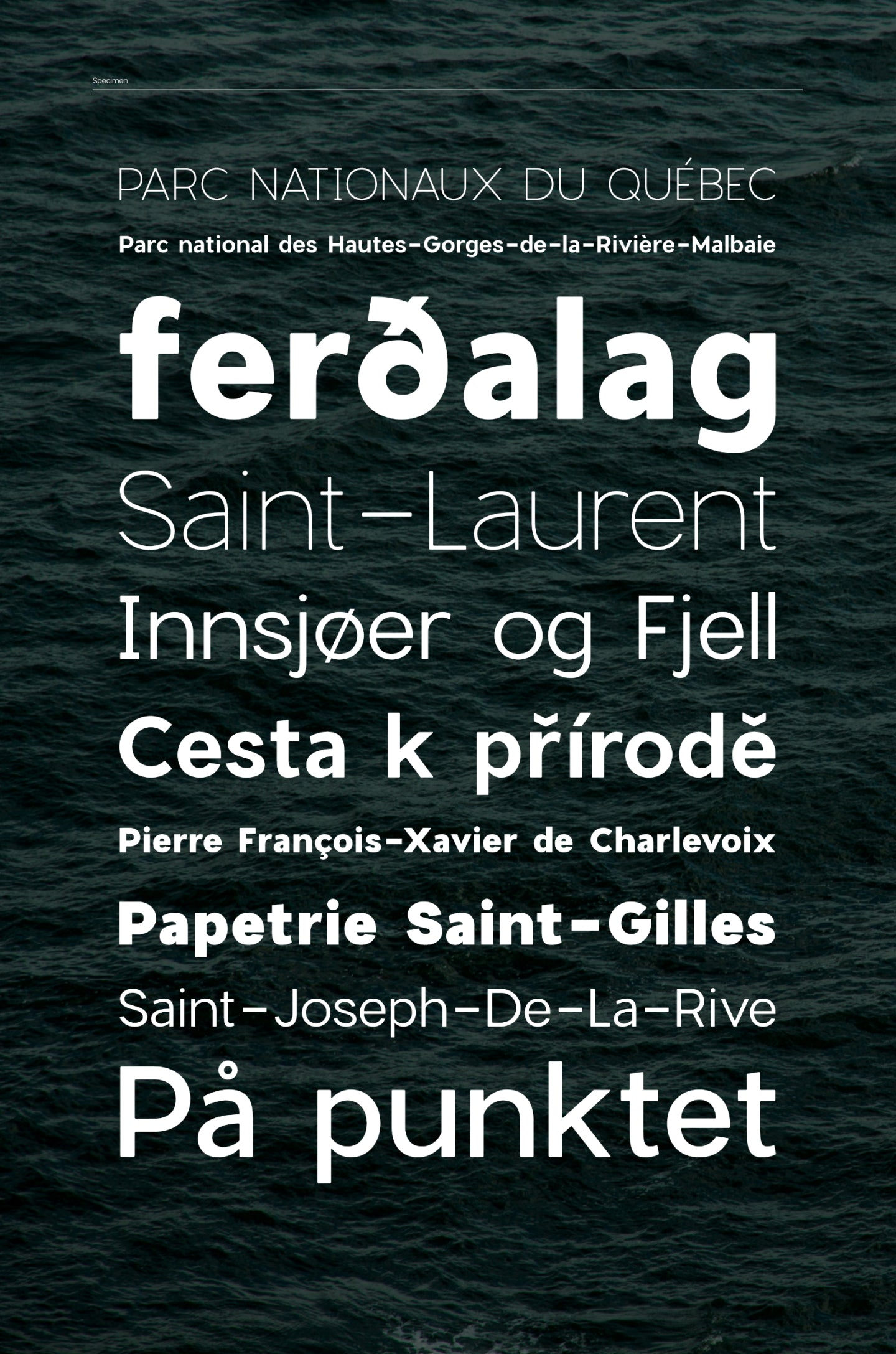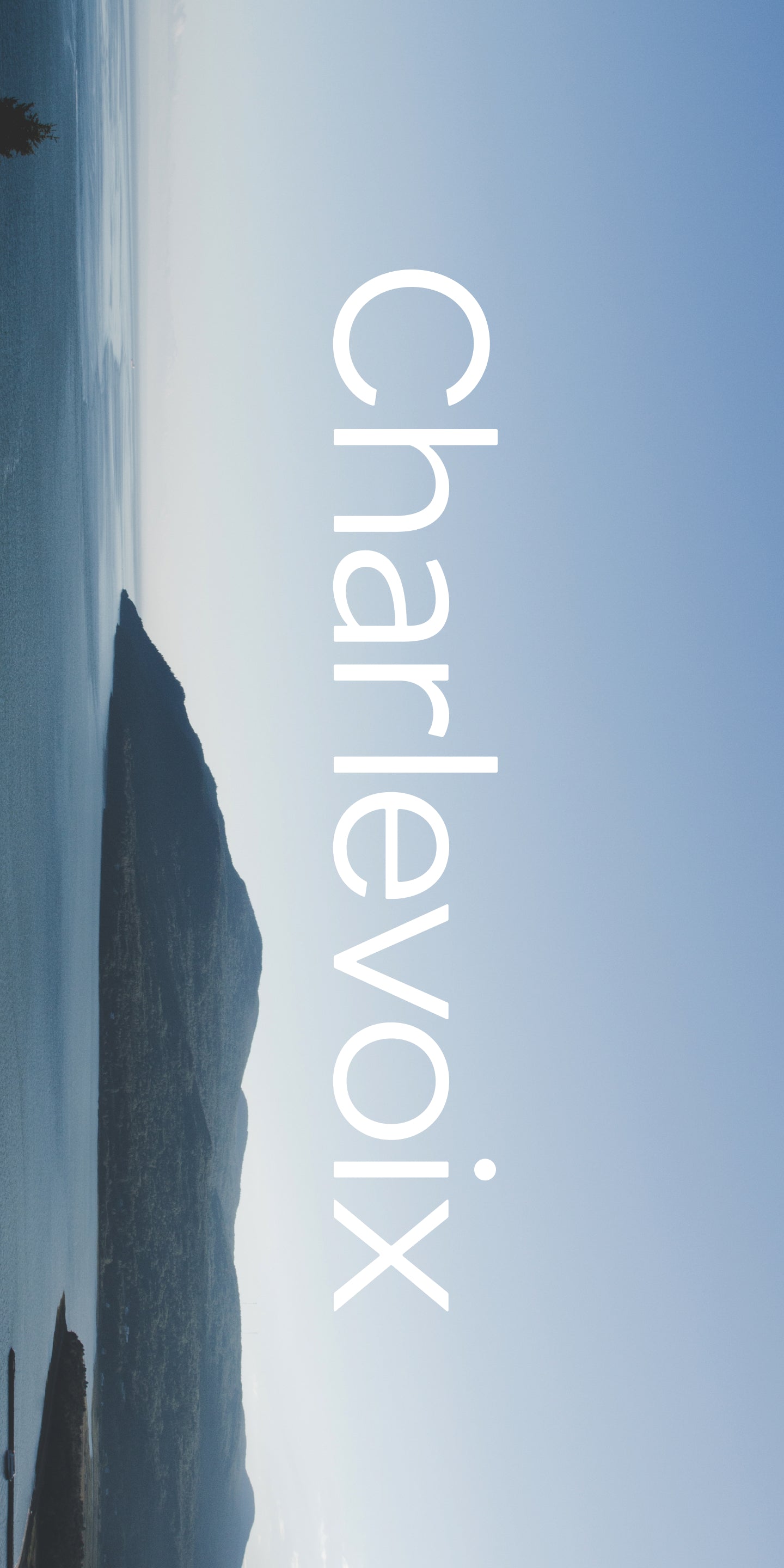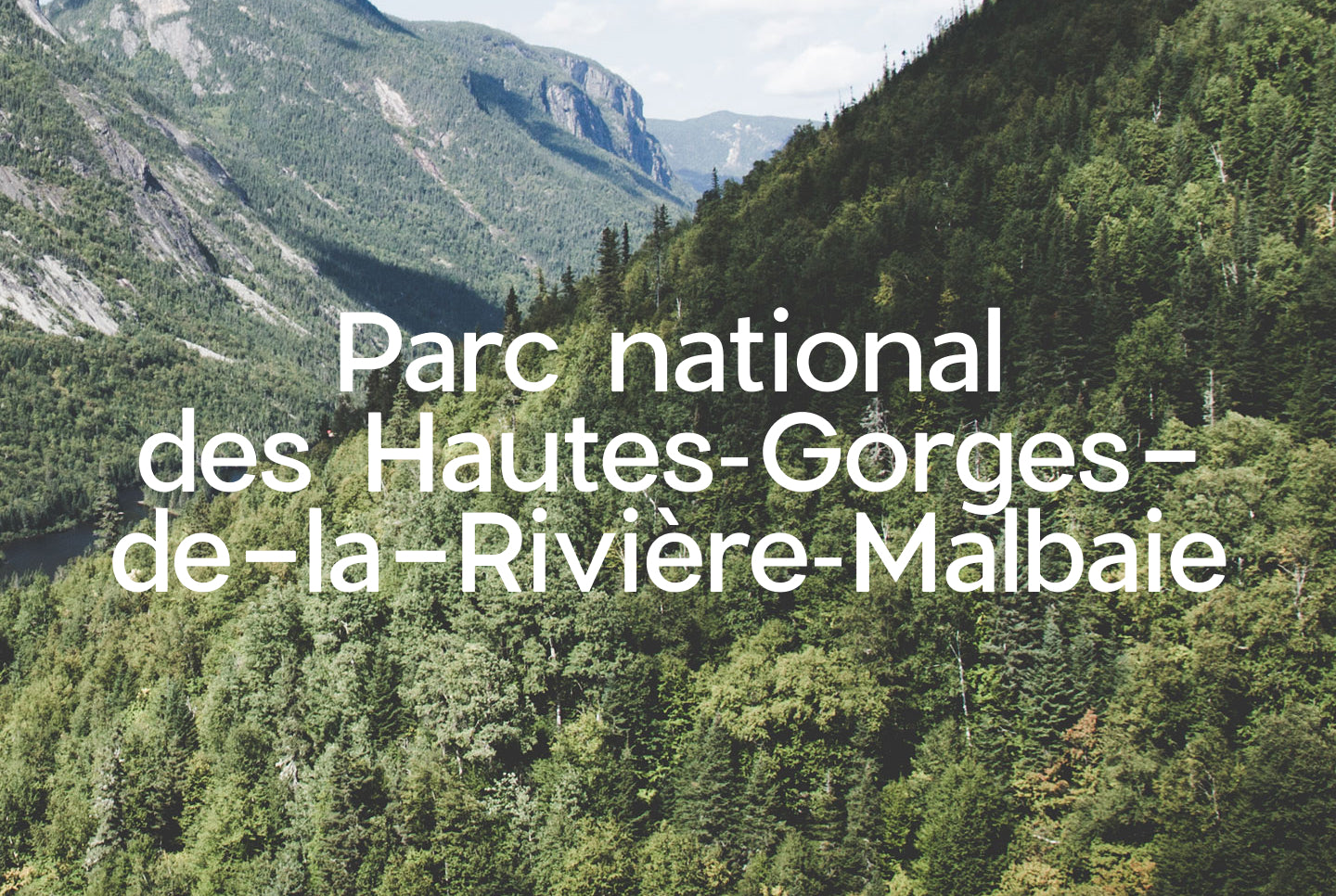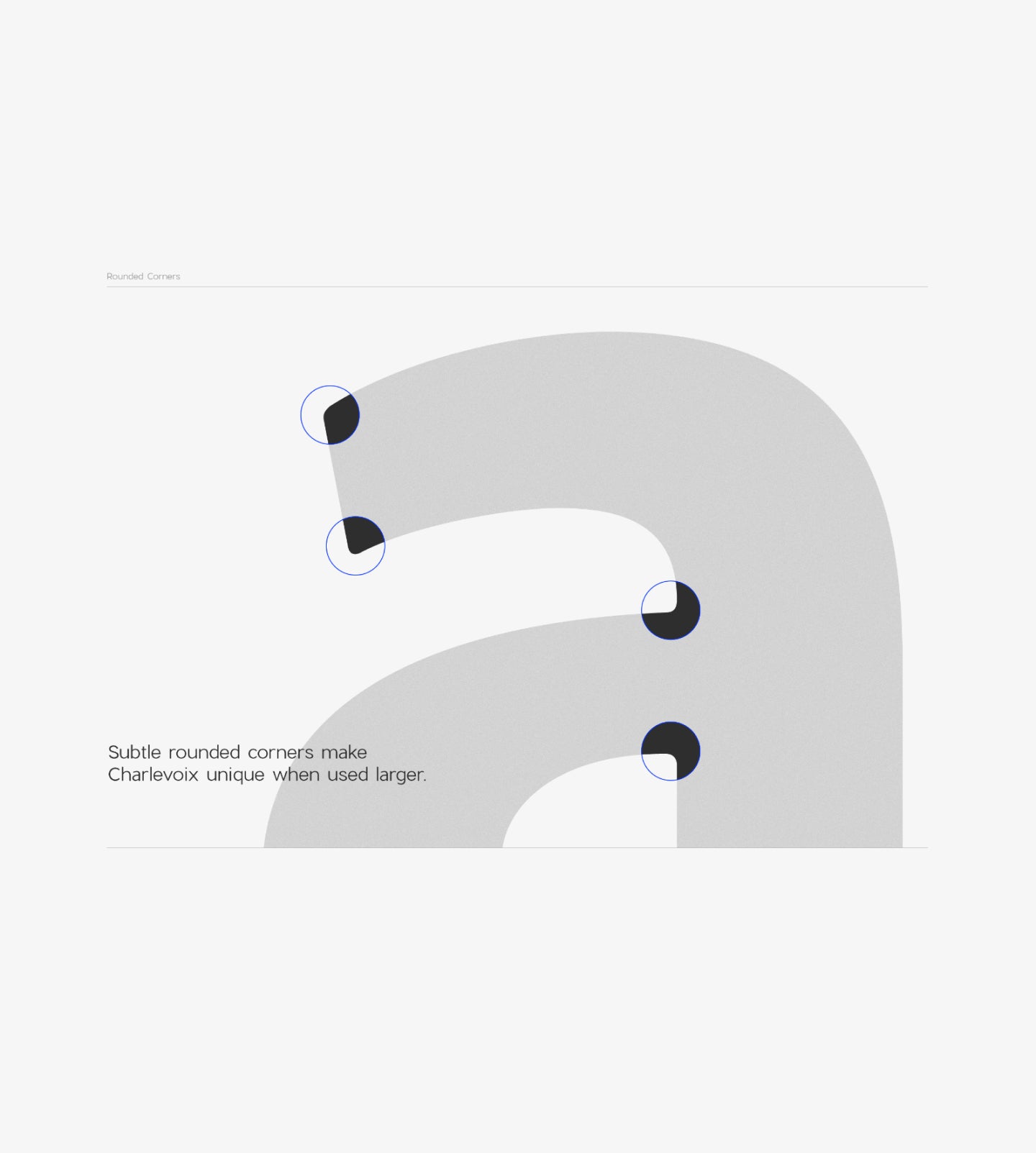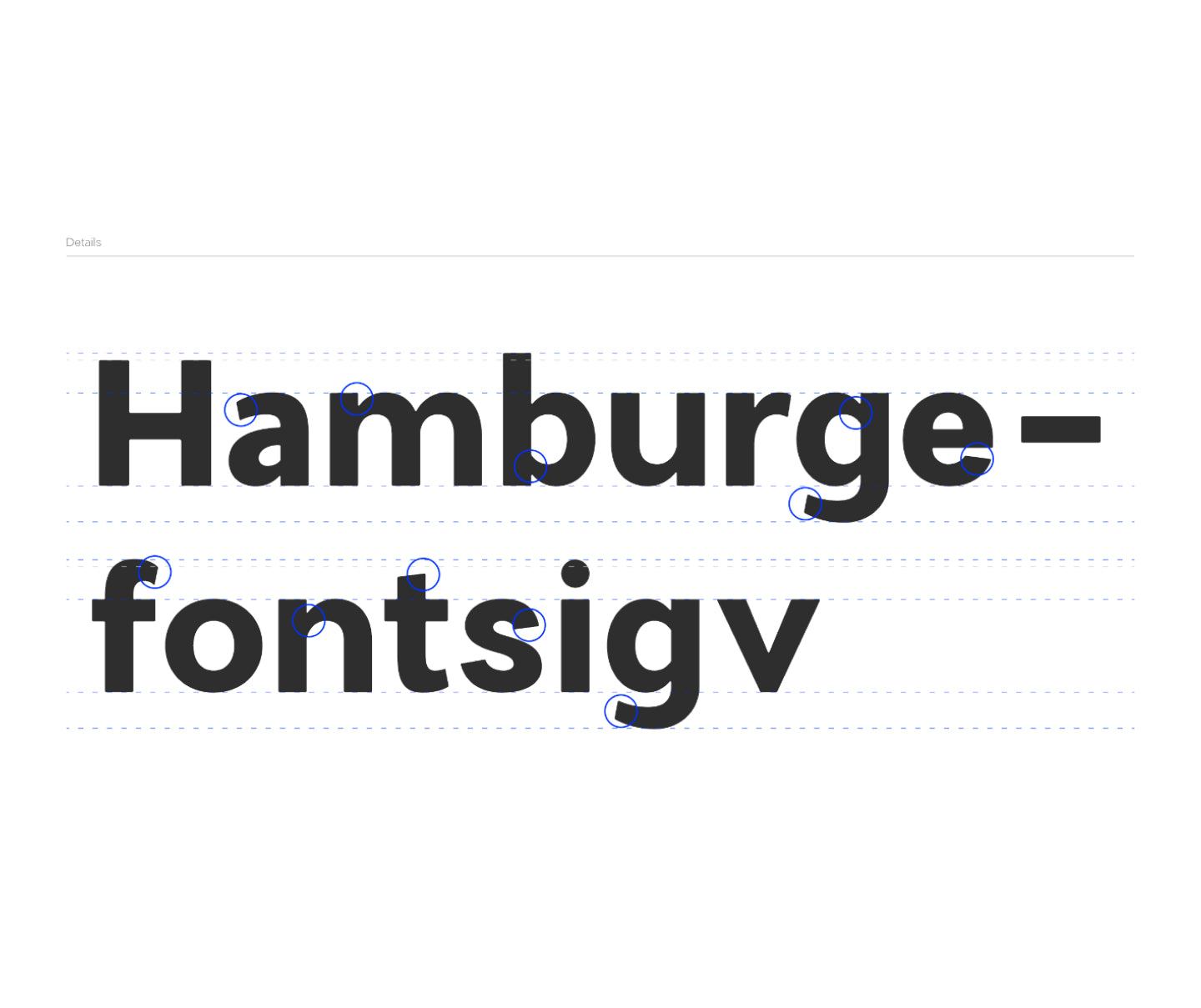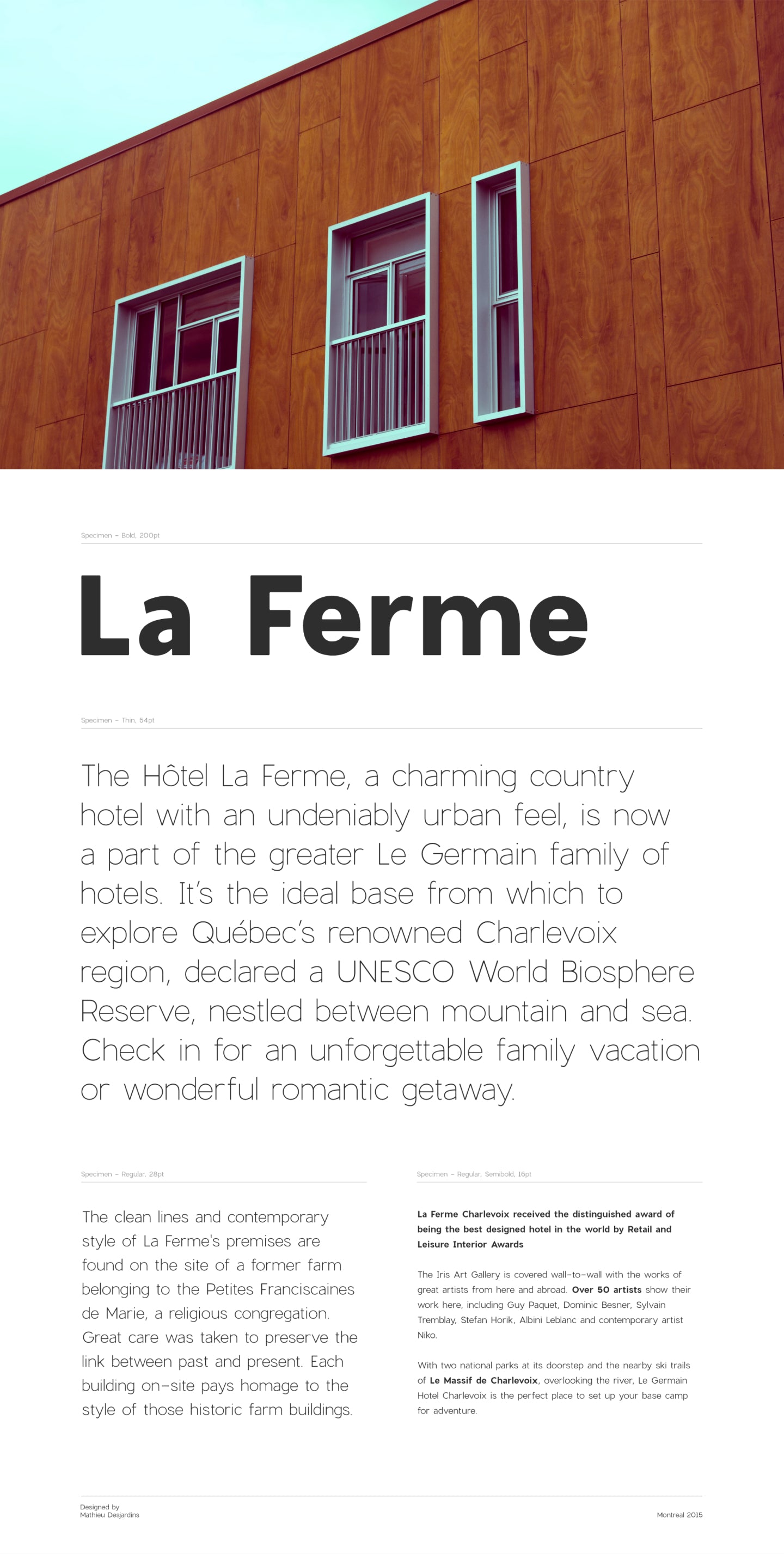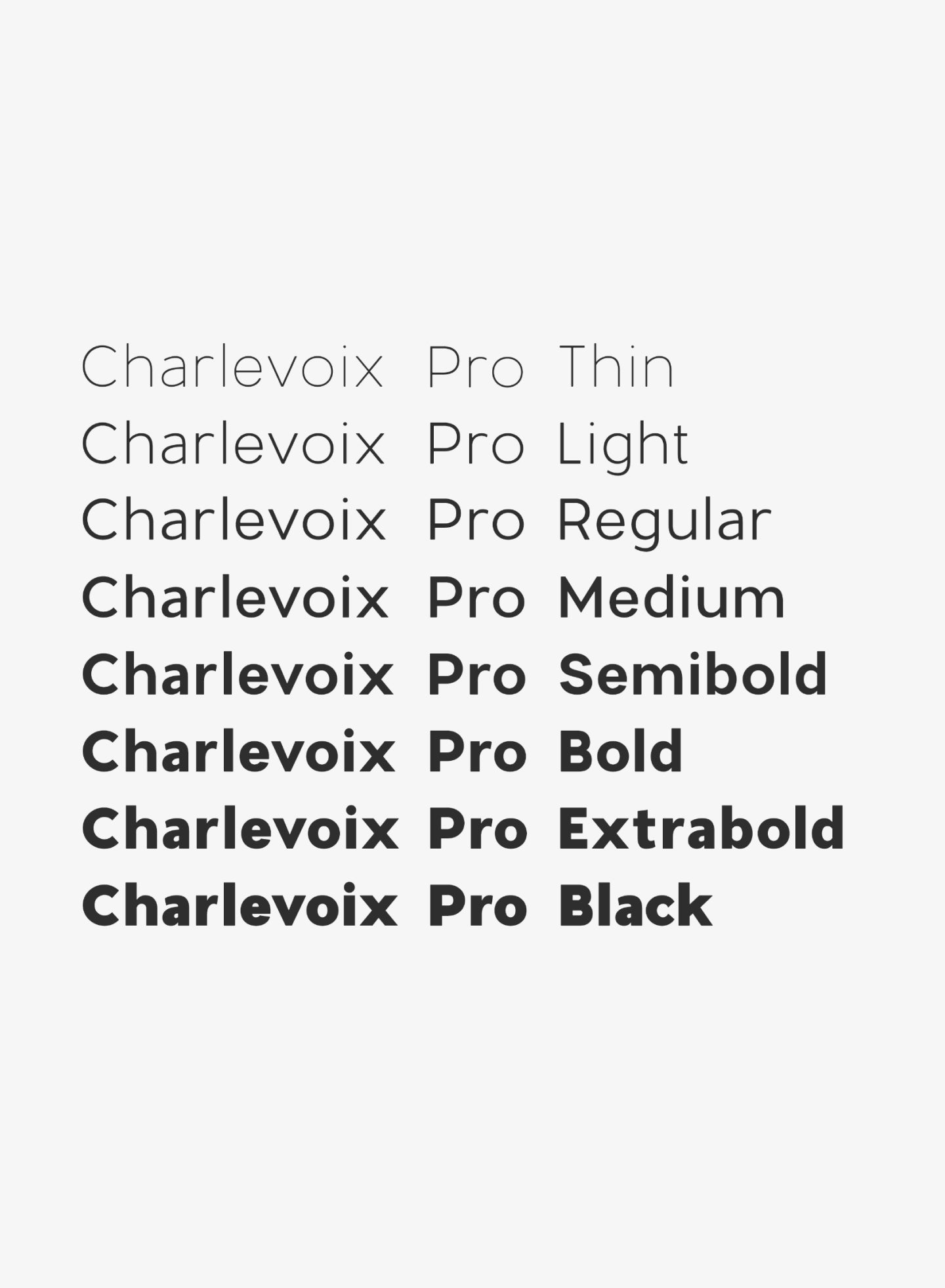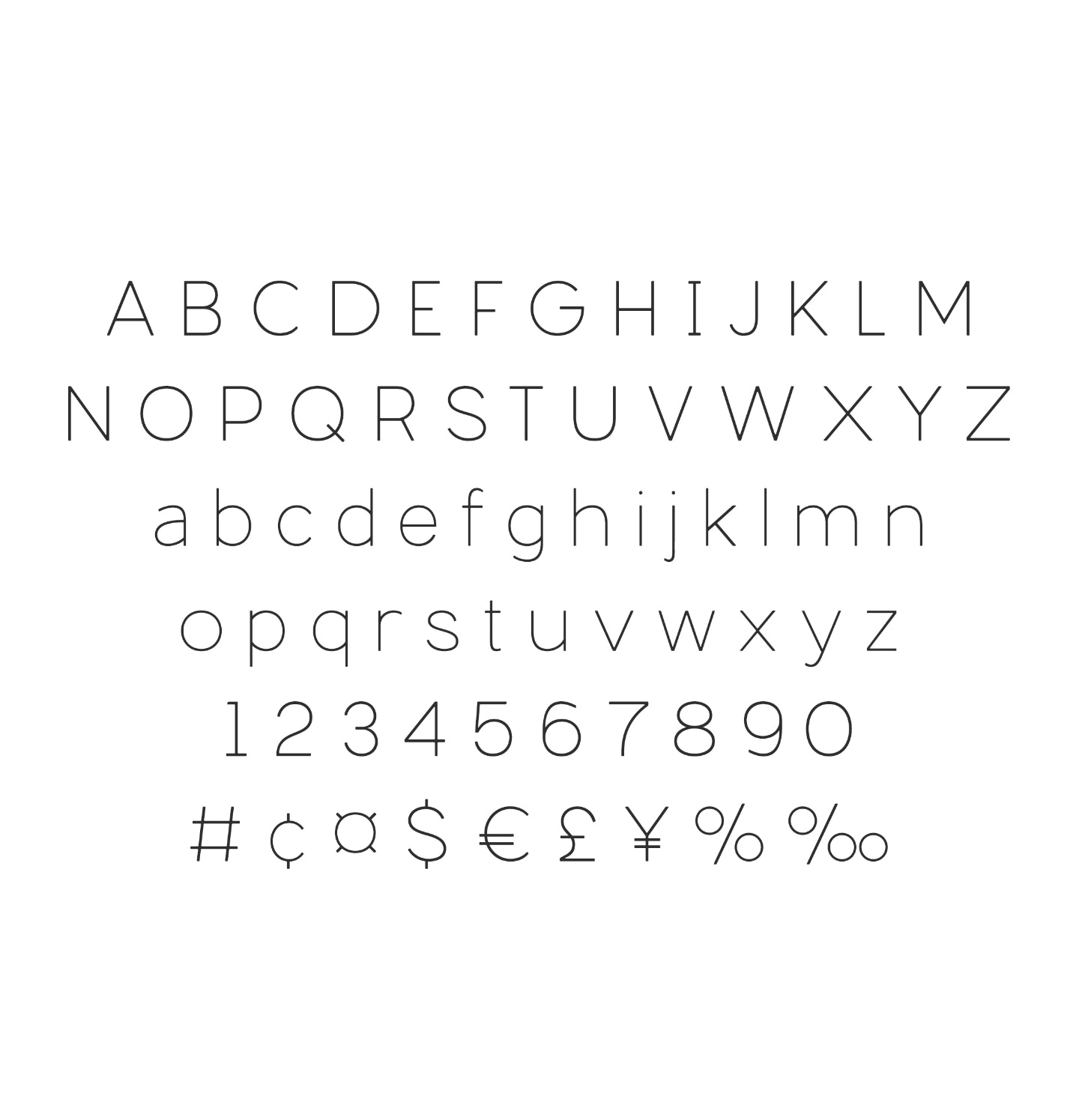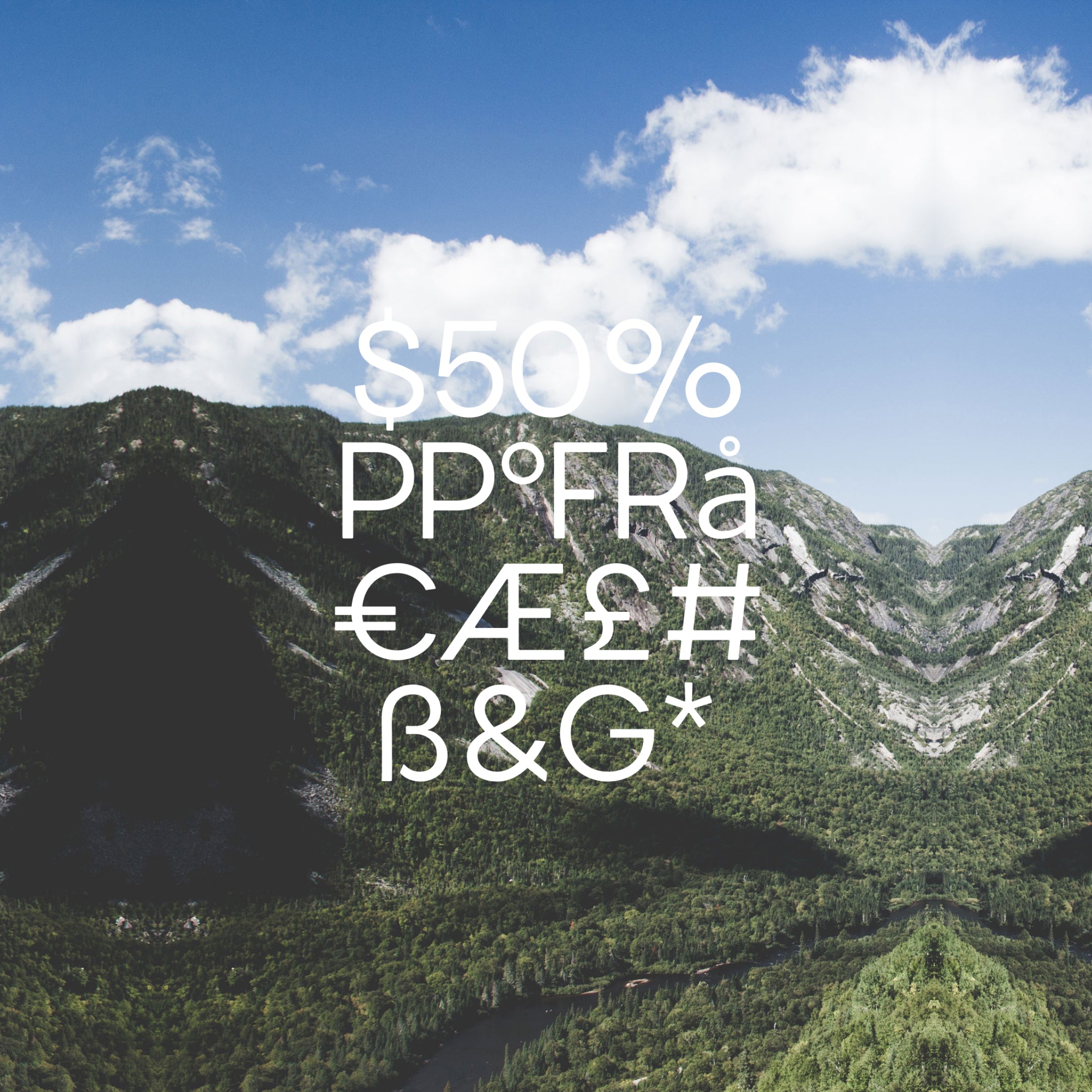
Charlevoix Pro
As bold as the hills, as smooth as the river, this is typography with a sense of place.
Nature-shaped. Display-ready.
Charlevoix Pro is a beautiful display typeface inspired by one of Quebec's greatest region. It is strong and bold like Charlevoix's hills and mountains and fluid like the water of the Saint-Laurent river. It's slightly rounded corners give this font a human touch when it's used in titles.